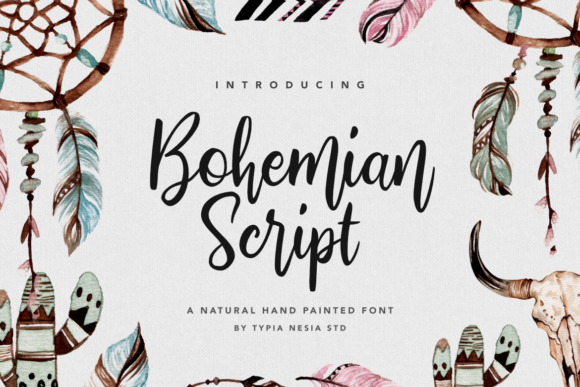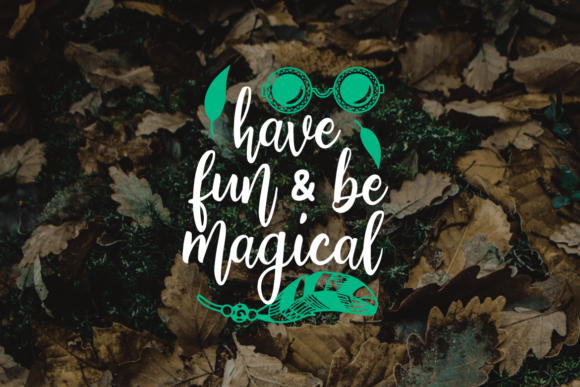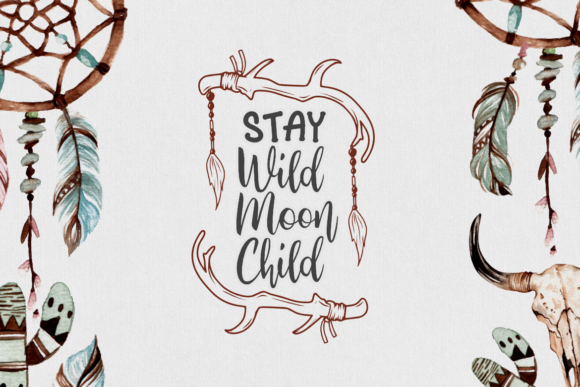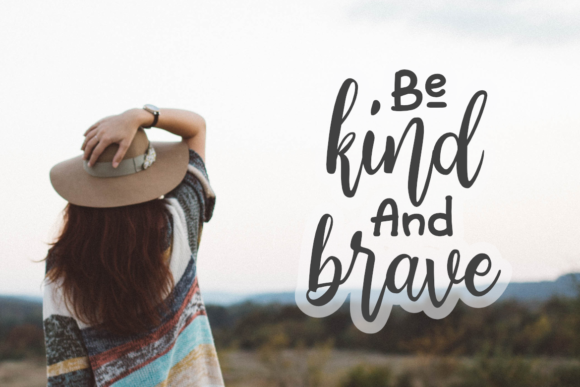
Bohemian Script Font
About the Bohemian Script Font
Step up your design game with Bohemian Script Font, a font that exudes confidence and style. Bohemian is a beautiful and fresh handwritten font with an organic feel. It will put an authentic twist on any design idea!
Bohemian Script excels in projects requiring a touch of handcrafted authenticity—think wedding invitations, social media graphics, or short quotes in lifestyle branding. Its organic nature makes it less suitable for body text or UI elements where readability is paramount; long paragraphs set in Bohemian would be difficult to read.
The font’s personality is undeniably charming and slightly whimsical, yet sophisticated. Its casual elegance lends itself well to brands emphasizing handmade goods, artisanal products, or a bohemian lifestyle aesthetic.
Pairing Bohemian with a clean sans-serif like Lato for body text creates a strong contrast, balancing its playful energy with clear readability. Alternatively, a classic serif font like Garamond could add a touch of timeless sophistication, enhancing the overall elegance. Avoid pairing it with other highly decorative scripts to prevent visual clutter.